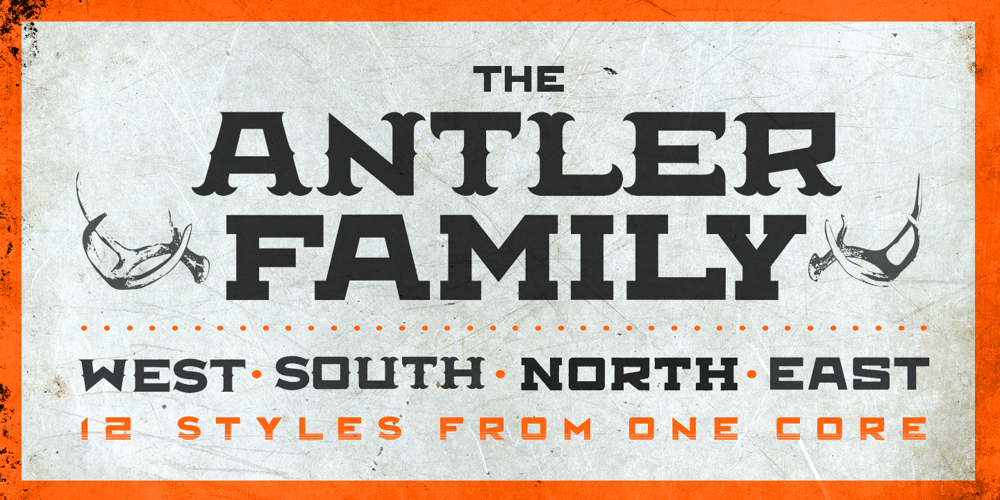
Antler Font Family was designed by Matt Frost and published by Matt Frost. Antler contains 40 styles and family package options. The Antler Family is an expansive display font system, 20 styles large, based on one single modern, constructivist core—each packed with alternate glyphs, stencils, and dingbats. Antler East is the core. Built on that are the rustic, barbed Antler West; a Victorian yoked style, South; and a slab serif Antler North. Each comes in Regular and Condensed, each with a variety of textures. All come with 16 dingbat antlers, stars, arrows, my own beard, and a few other surprises. This is a perfect font family for a brand with lots of sub-brands, such as a brewery, grocery, or publisher. You could continually change up your looks while maintaining a core feel. Antler Condensed is ready for beer bottles, fantasy novels, taco shops, beekeepers, cattle rustlers, tattoo artists, druids, hair bands, and bounty hunters. You know how Milton Glaser said you only need a handful of fonts? This could be one of those if you are any of the aforementioned—you’re going to use the hell out of it. Share this and see more at: https://www.facebook.com/FrostFoundry/